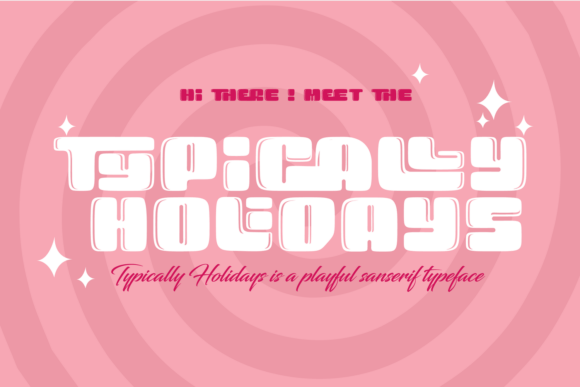
Typically Holidays – Playful Font
Unleash your creativity and inject a playful spirit into your designs with Typically Holidays, a captivating display font family crafted by 177Studio! This delightful typeface exudes a vibrant energy, making it a perfect choice for adding a touch of whimsy and fun to your projects.
Typically Holidays boasts a lively and carefree style that effortlessly captures the essence of joy and lightheartedness. Its playful curves and distinct letterforms dance across the page, evoking a sense of wonder and excitement.
Harness the boundless versatility of Typically Holidays to design eye-catching graphics that resonate with your audience. Create children's books that come alive with imagination, packaging that sparks delight, and social media posts that exude a playful charm. The possibilities are endless with this versatile font family.
The PUA encoding of Typically Holidays grants you access to a treasure trove of glyphs and swashes, empowering you to unleash your creativity and add intricate details to your designs. Explore a wide range of stylistic alternatives, ligatures, and ornaments that elevate your projects to new heights of artistry.
Elevate your designs with Typically Holidays, a font family that embodies the spirit of playfulness and joy. Let your imagination soar and create graphics that resonate with your audience, leaving a lasting impression that sparks smiles and ignites their imaginations.